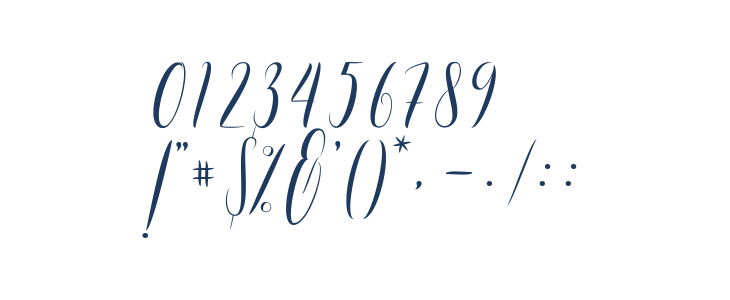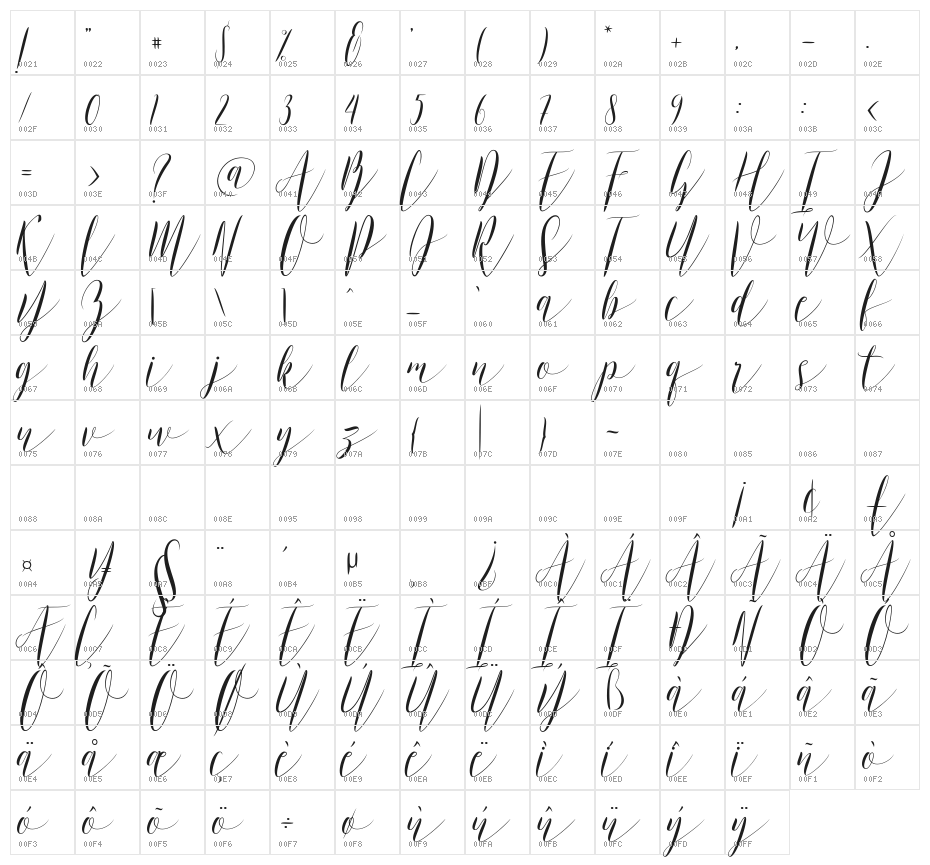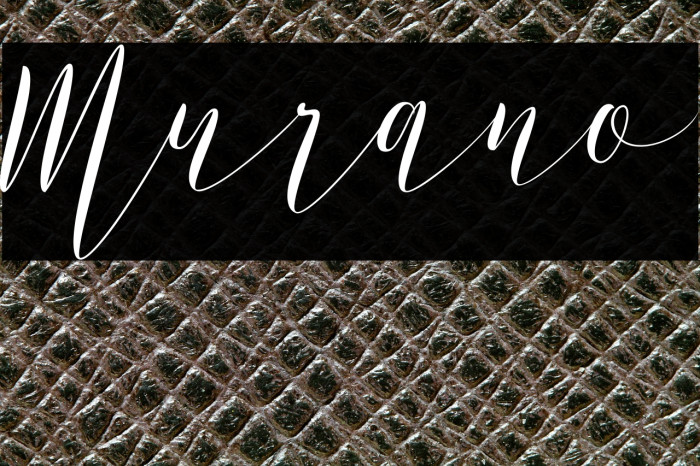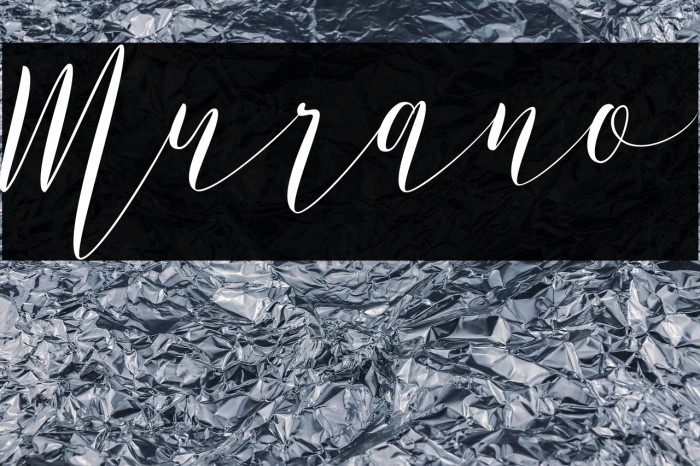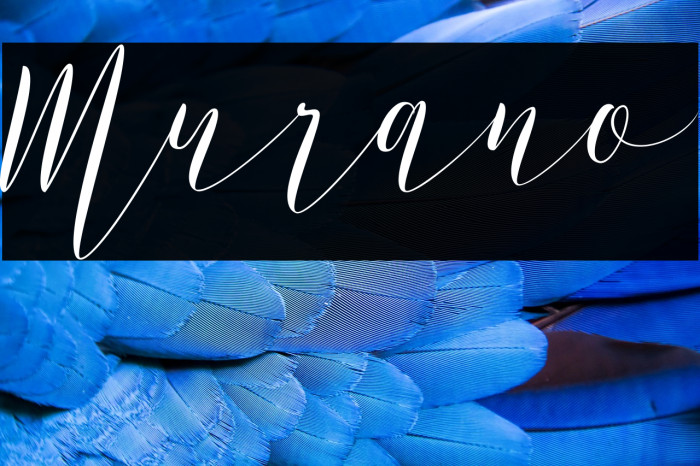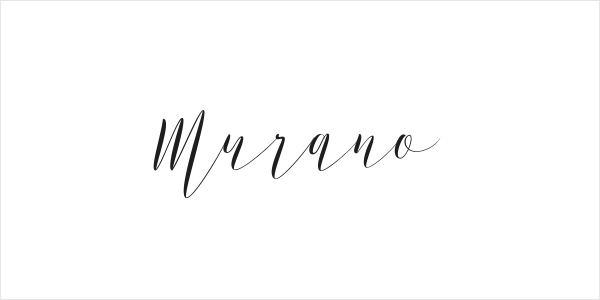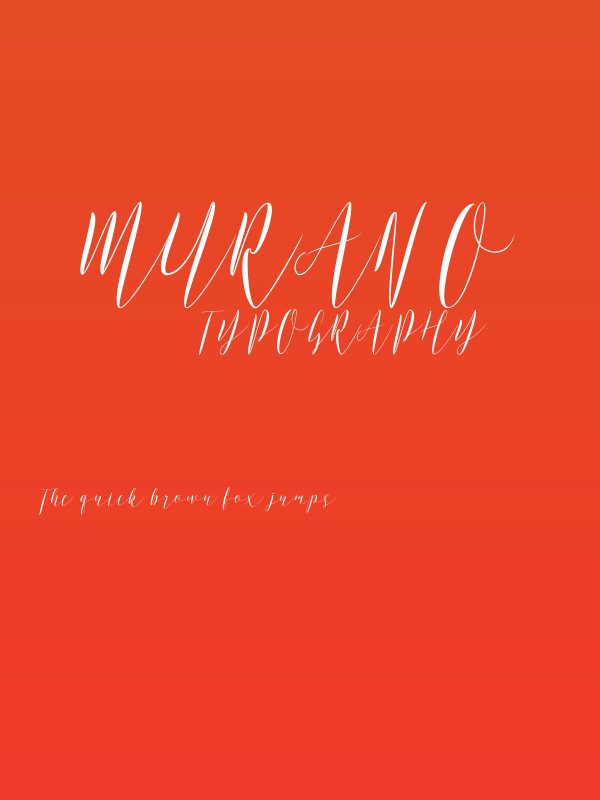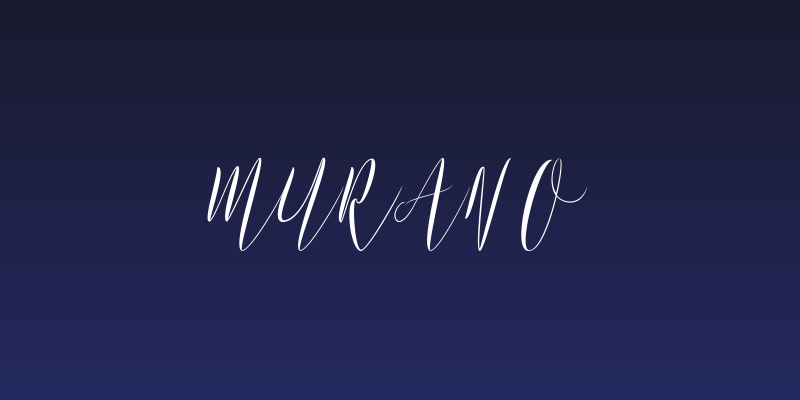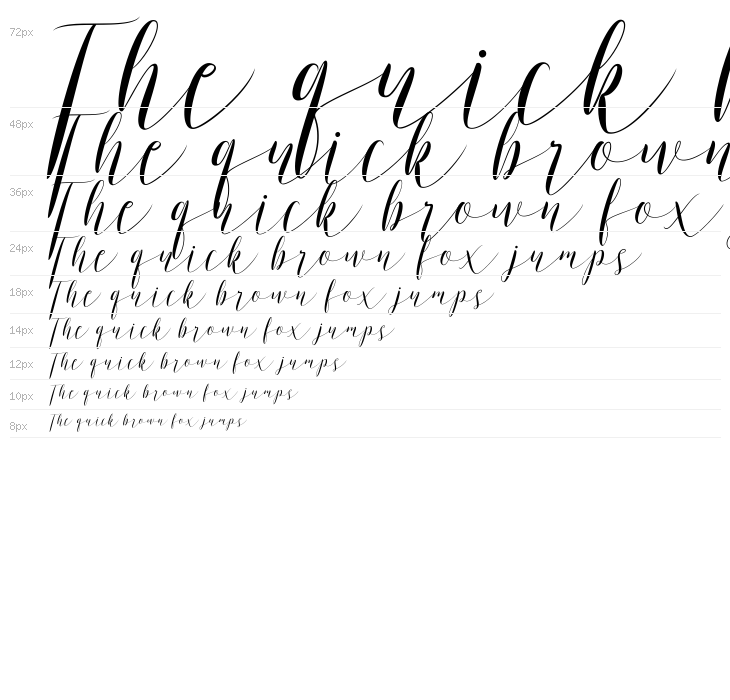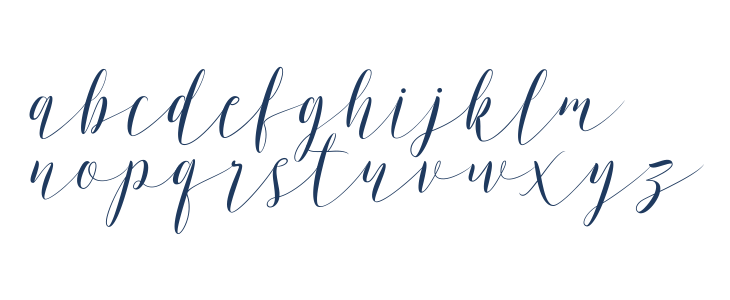
Murano Font
Murano Description
This elegant script font features a flowing, cursive style with a modern twist. The letters are characterized by their smooth, sweeping curves and varying stroke widths, giving it a dynamic and sophisticated appearance. The uppercase letters are particularly ornate, with extended flourishes that add a touch of drama. The lowercase letters maintain a consistent flow, making them highly legible despite their decorative nature. The numerals and special characters complement the alphabet with similar stylistic elements, ensuring a cohesive look across all text. This font is ideal for projects that require a touch of elegance and style.